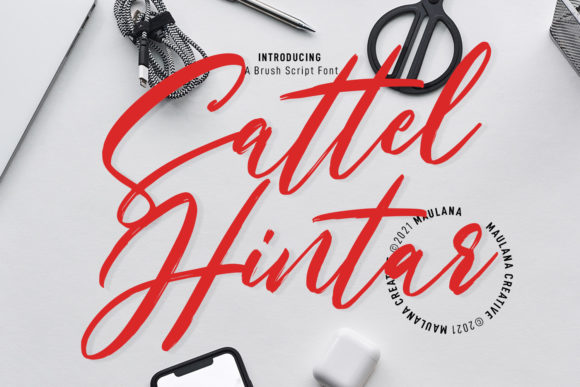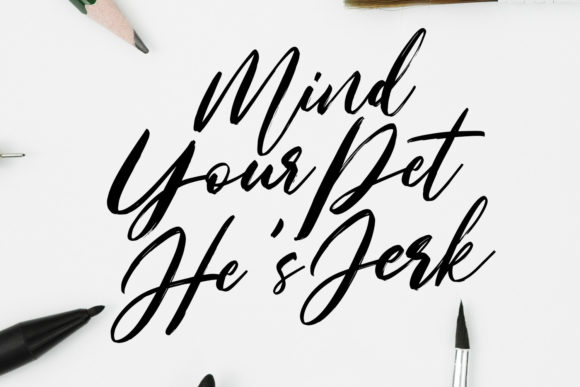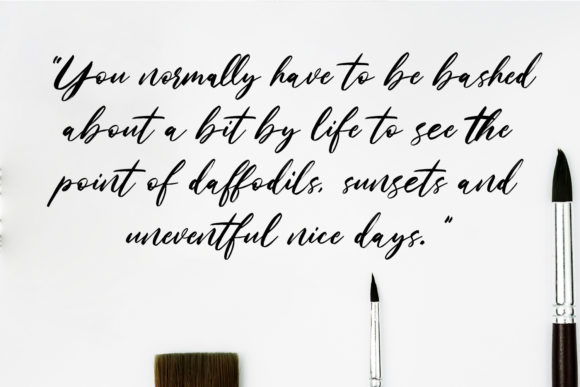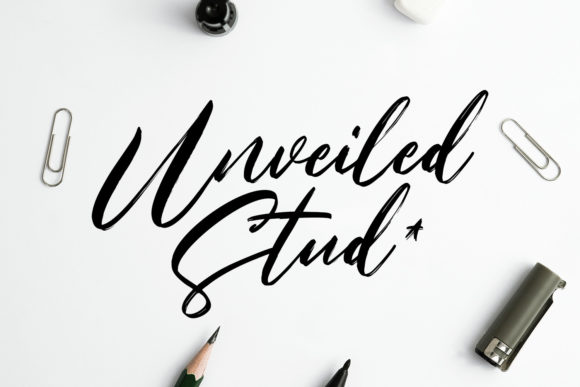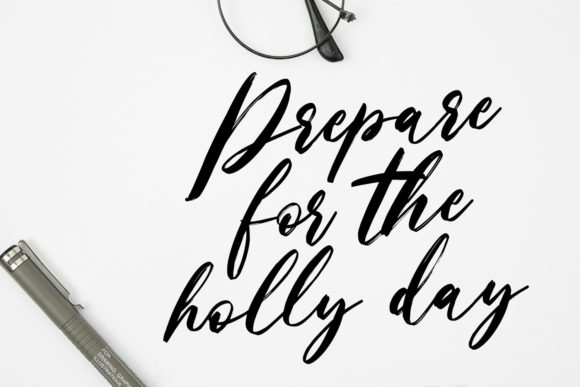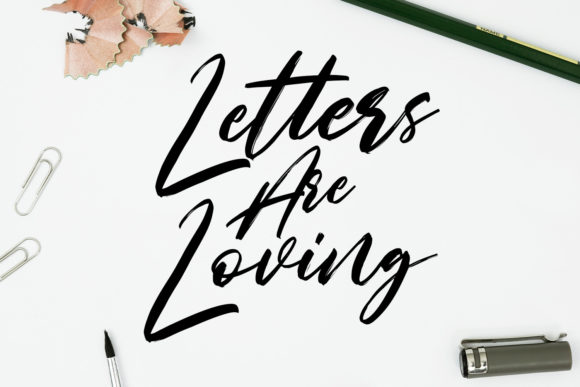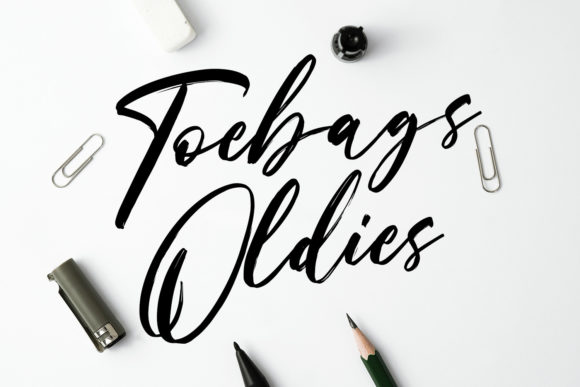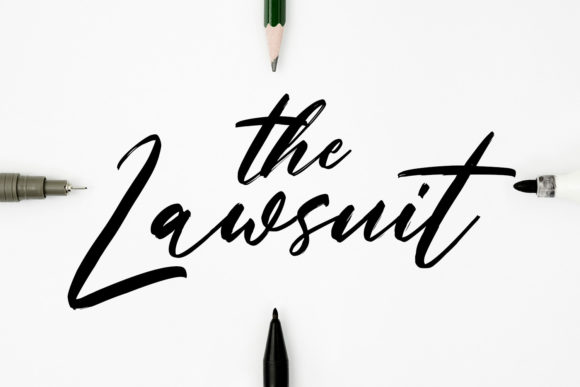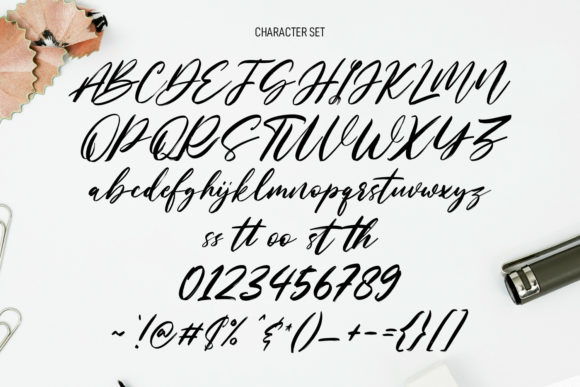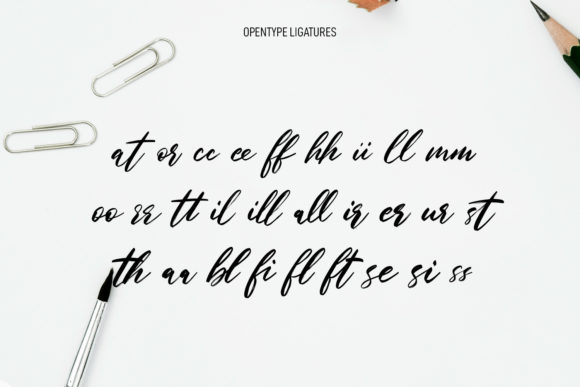
Sattel Hintar Font
Sattel Hintar is a stylish and brushed script font. It looks stunning on wedding invitations, thank you cards, quotes, greeting cards, logos, business cards and every other design which needs a fashionable touch.